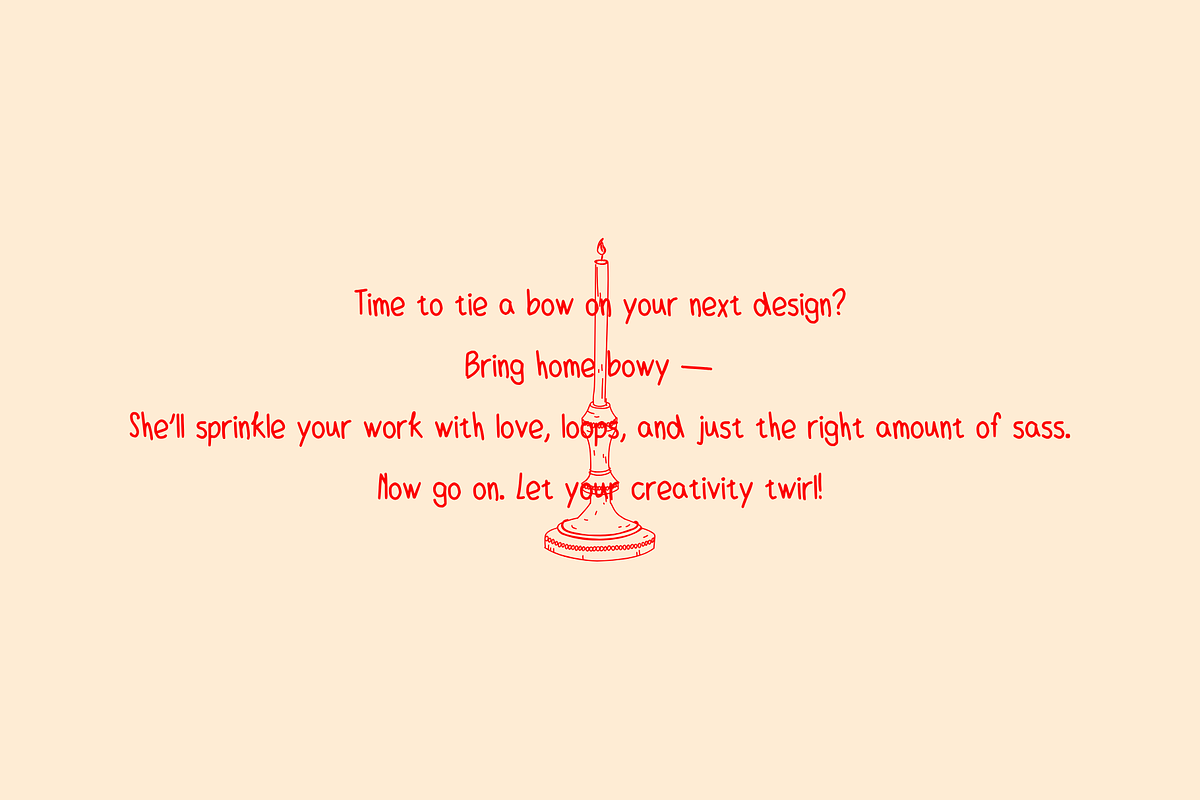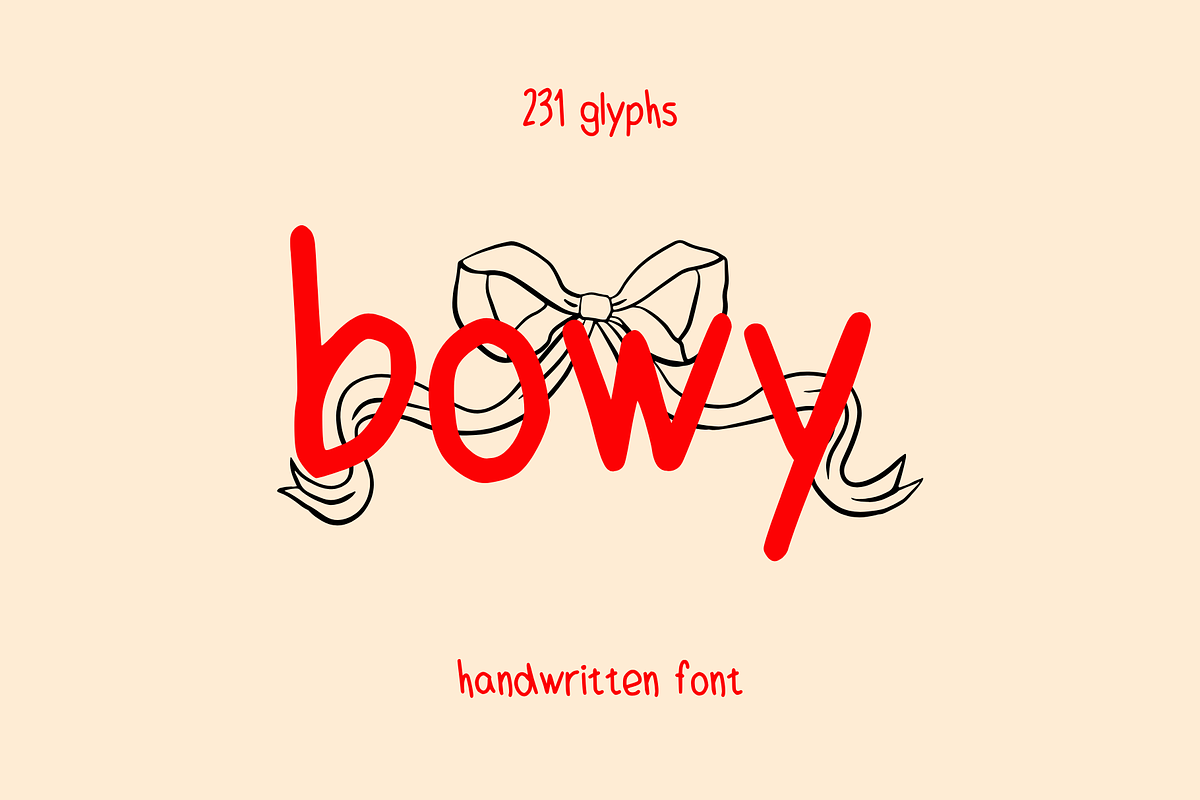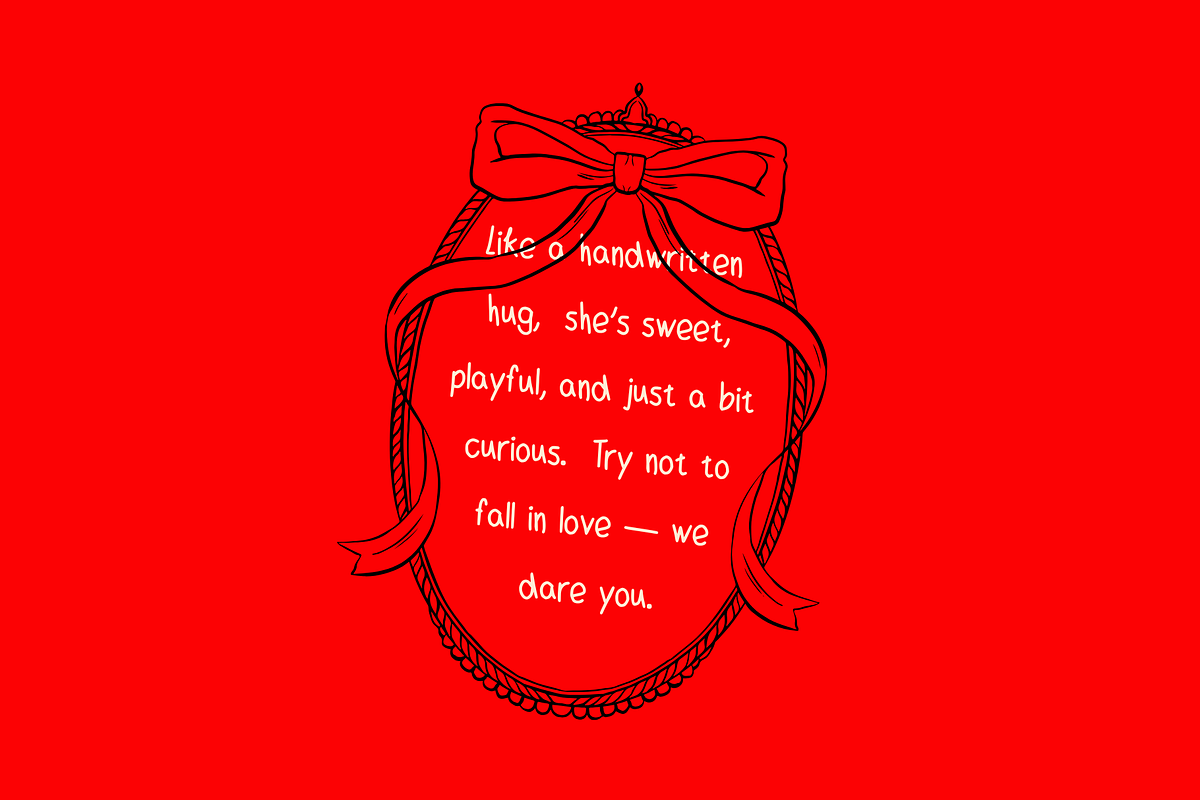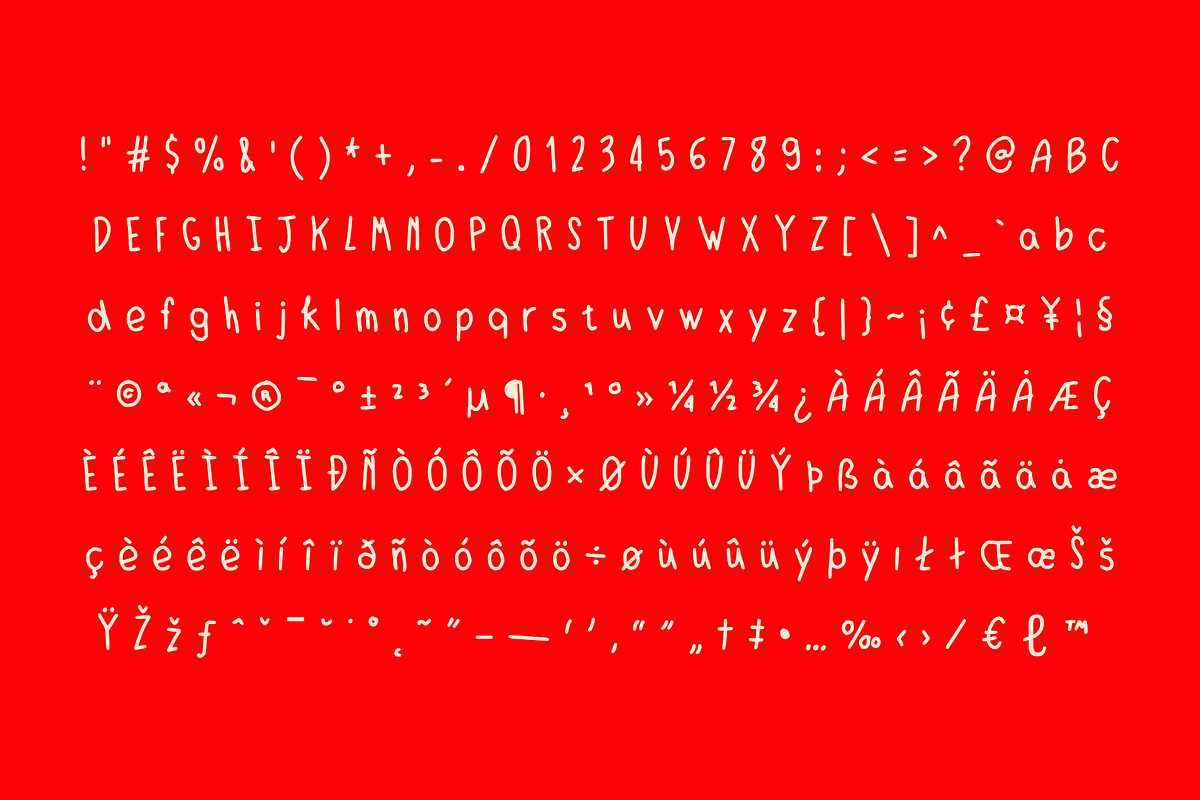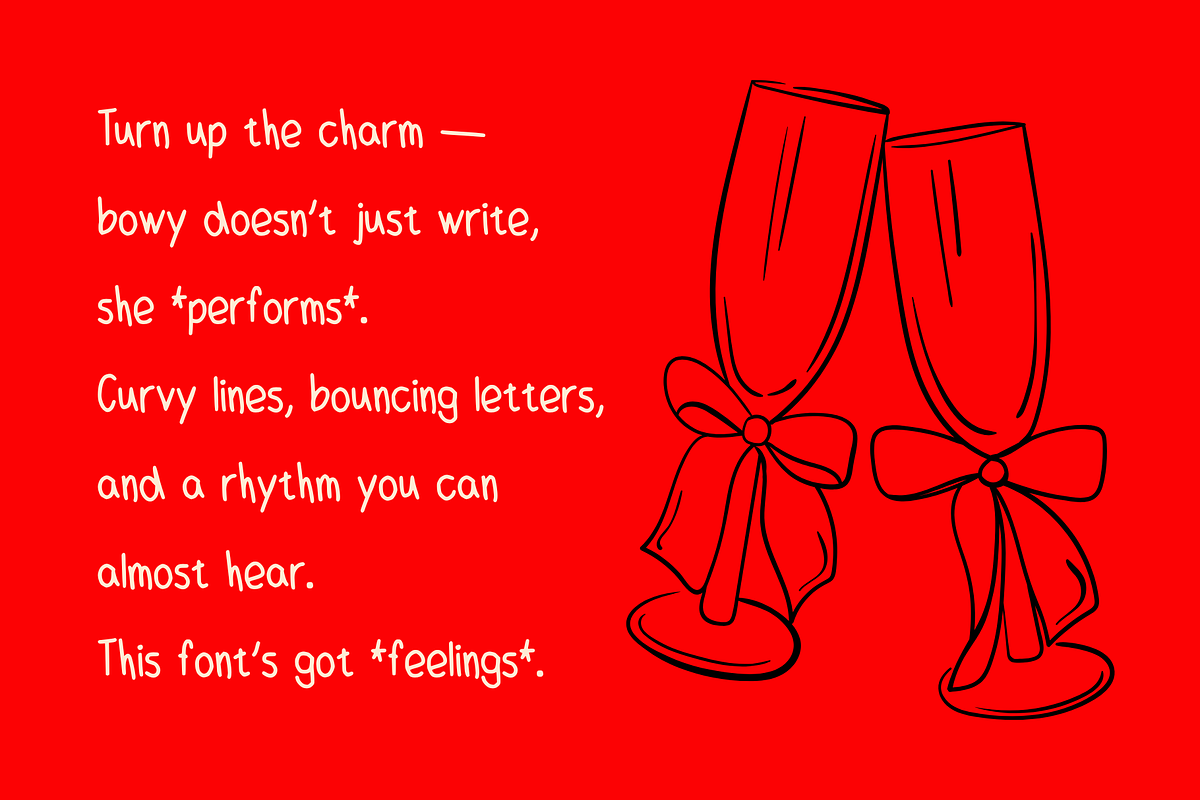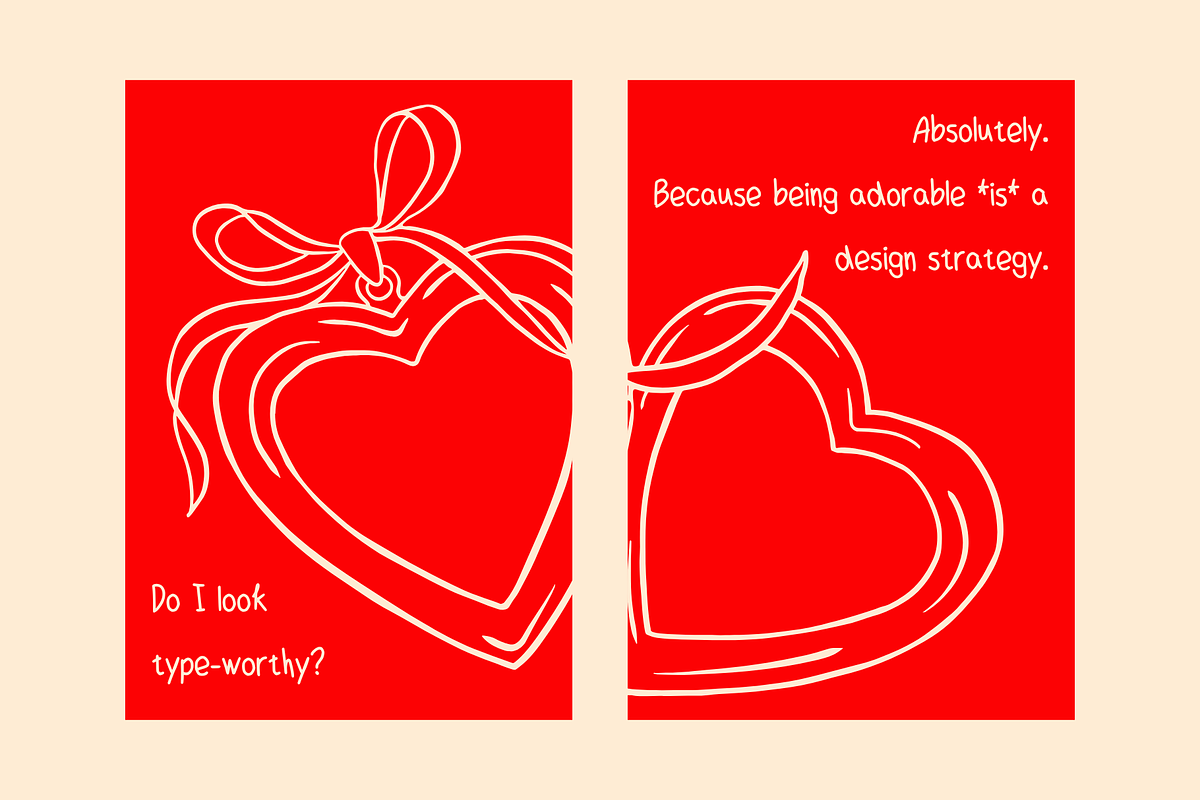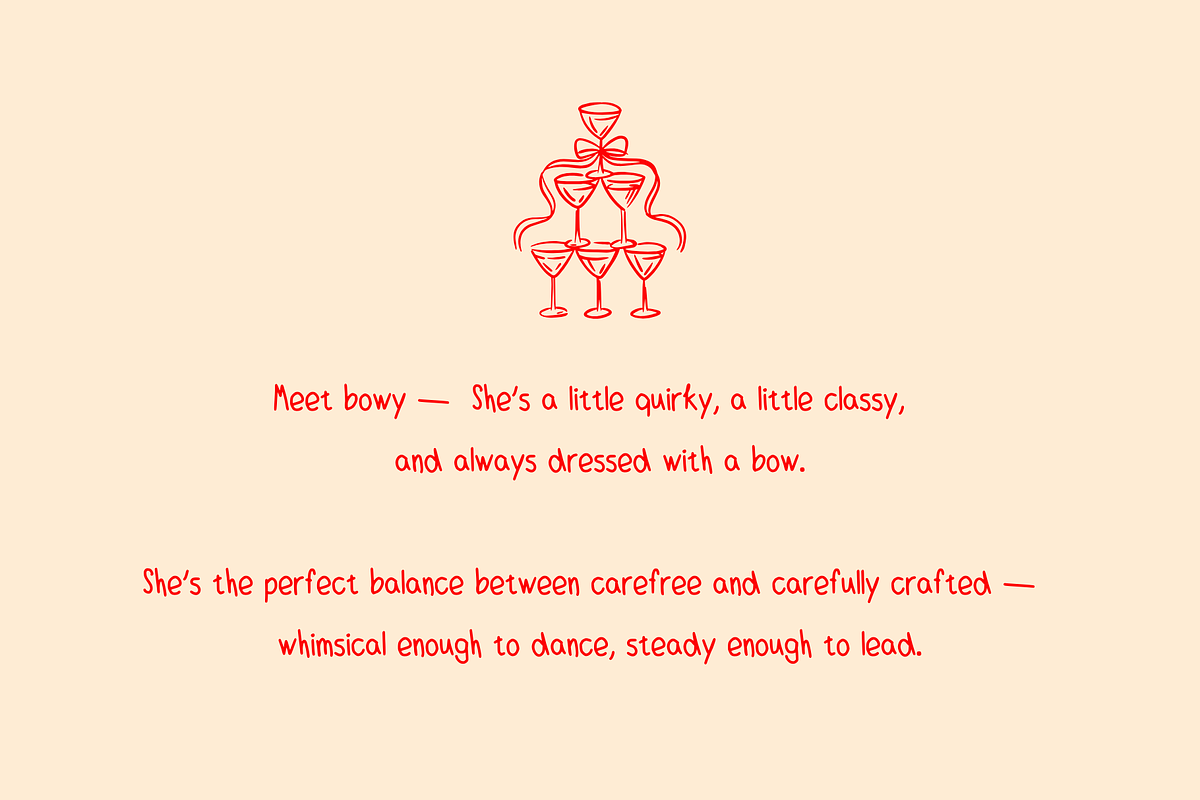
Bowy — A Playful Handwritten Font
Say hello to bowy, a sweet and sassy handwritten font that waltzes into your designs with charm, curves, and a touch of whimsy.
Crafted with 231 expressive glyphs, bowy brings the perfect blend of playful energy and elegant personality. Inspired by handwritten notes and tied up with bows, this font is ideal for everything from branding and packaging to invitations, greeting cards, and creative social media posts.
Whether you're designing something romantic, quirky, or delightfully fun — bowy is ready to twirl across your canvas!
Let bowy add a handwritten hug to your next project!